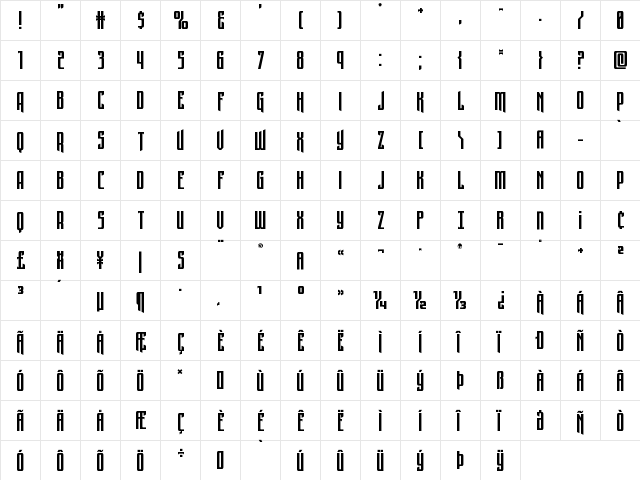
Night Traveler Regular
Design Context for Night Traveler Typeface
Night Traveler is a composed and adaptable typeface that performs quietly and consistently across a wide range of design contexts.